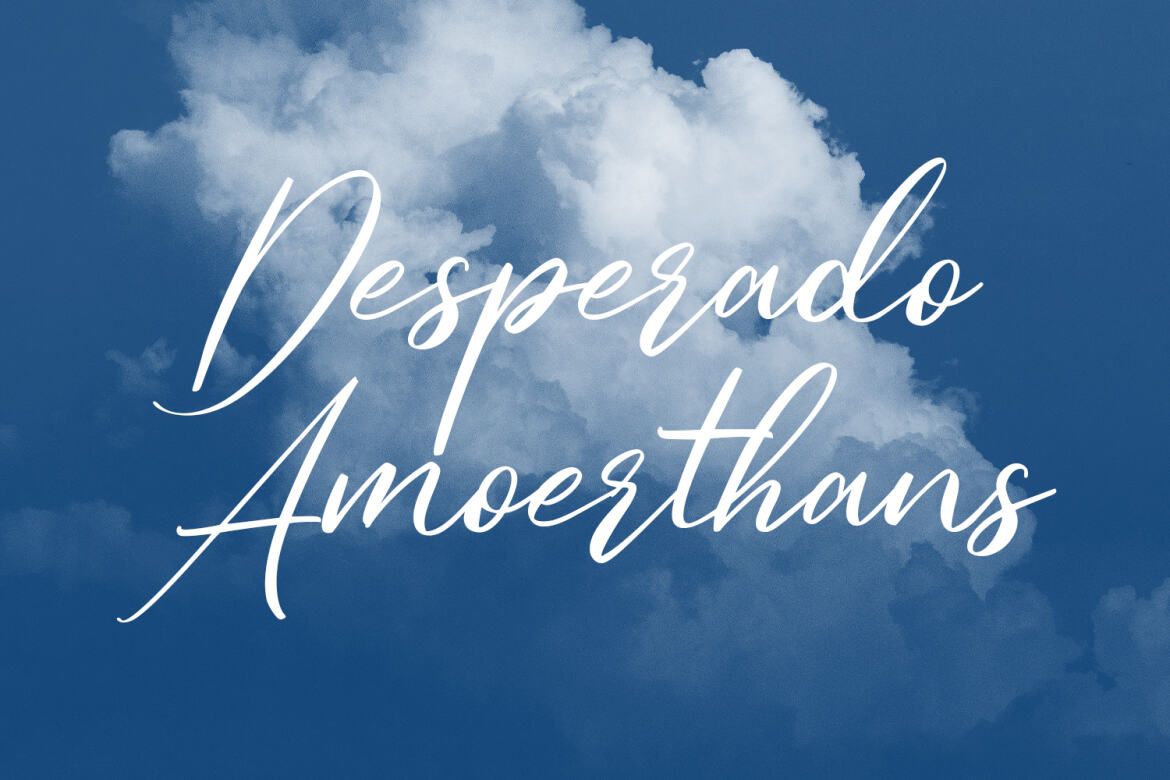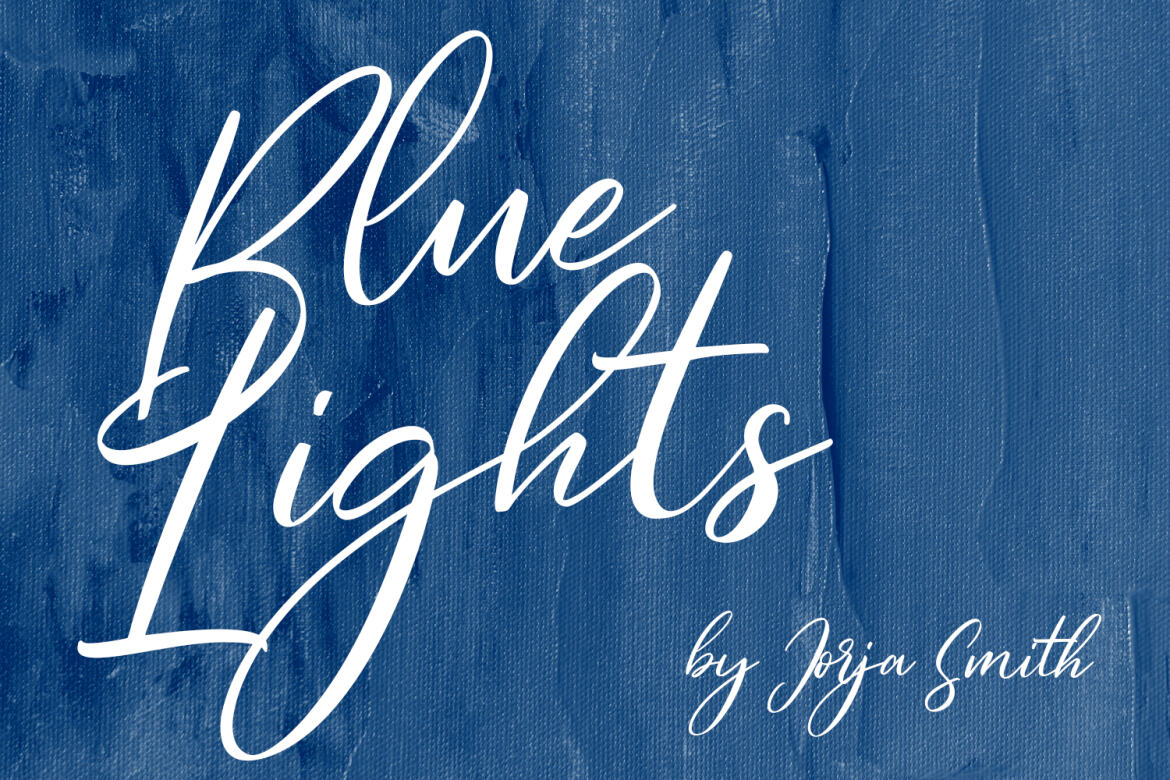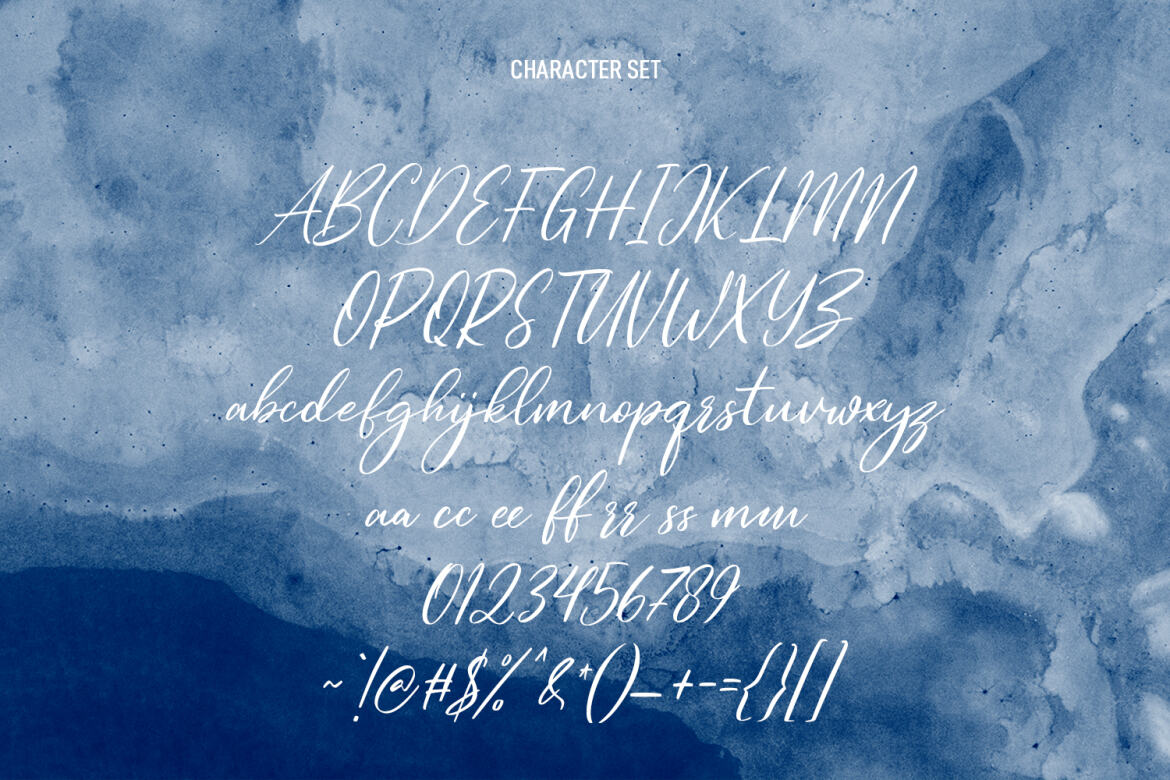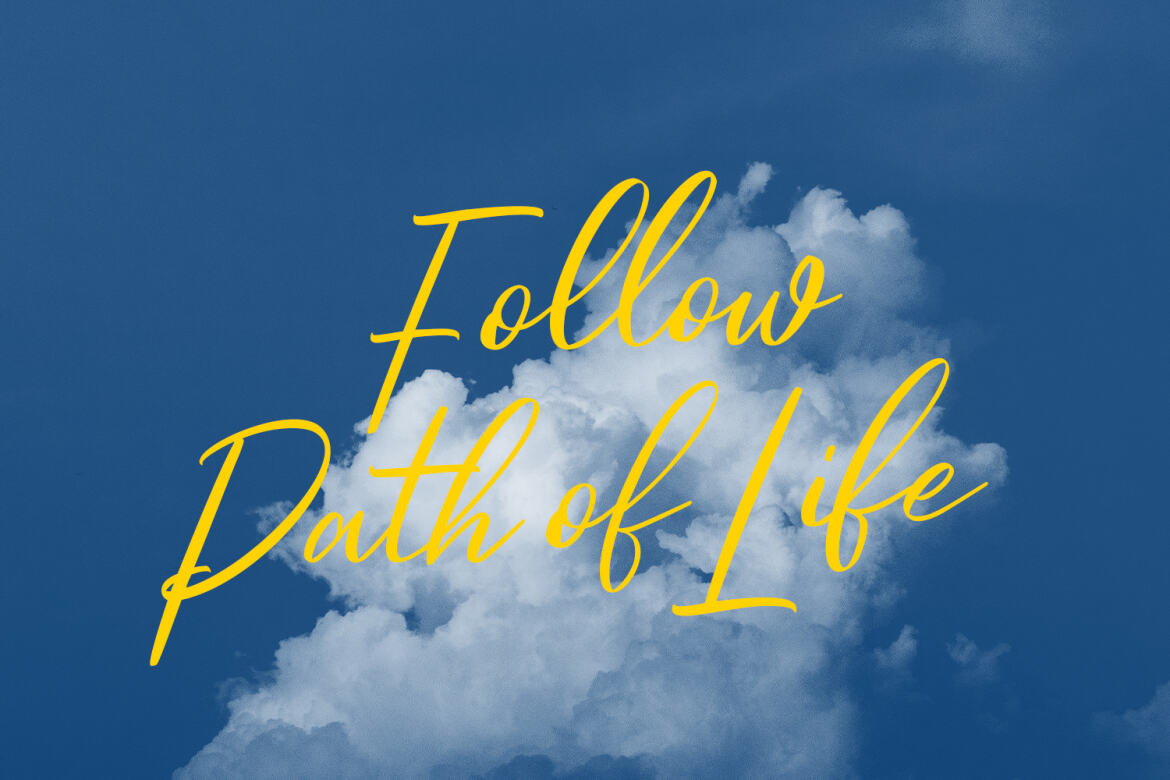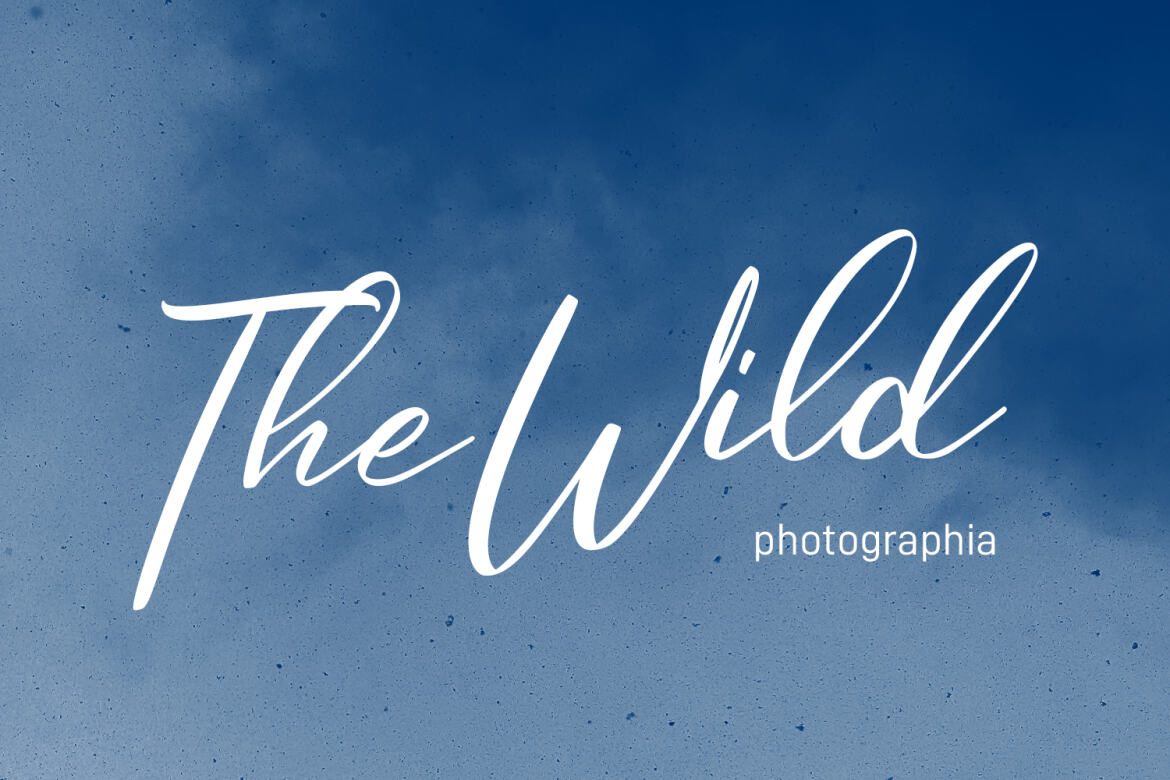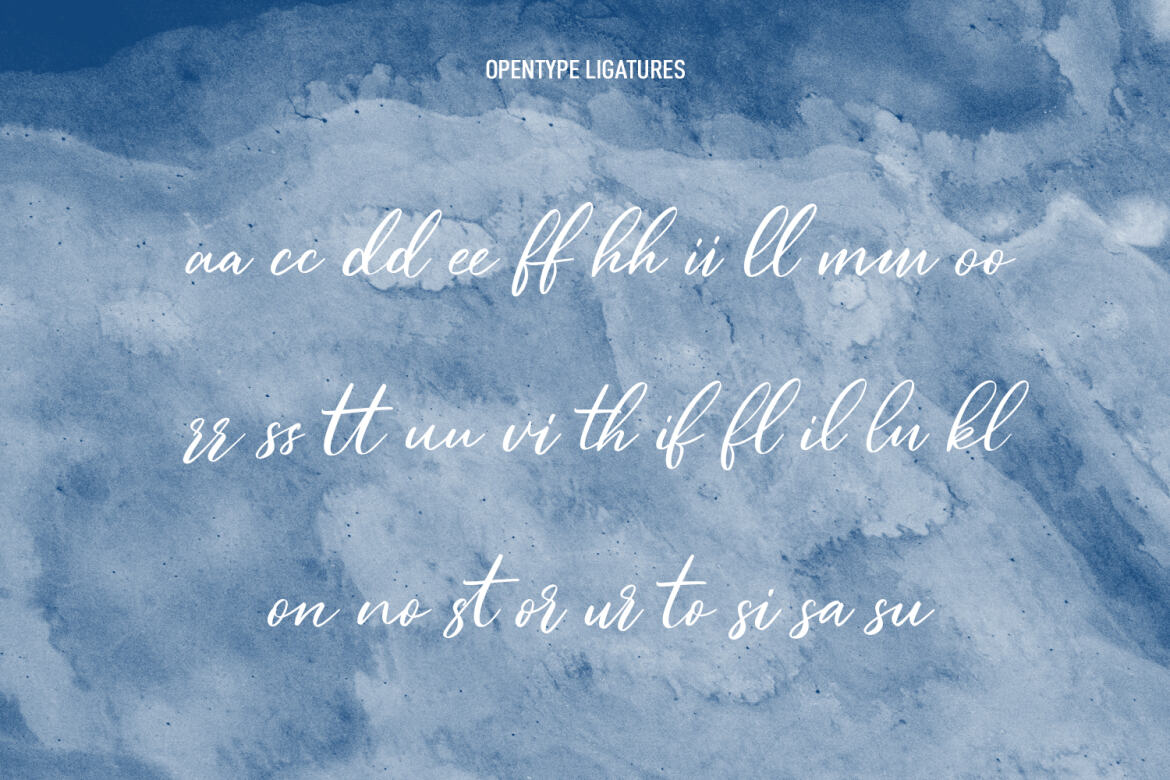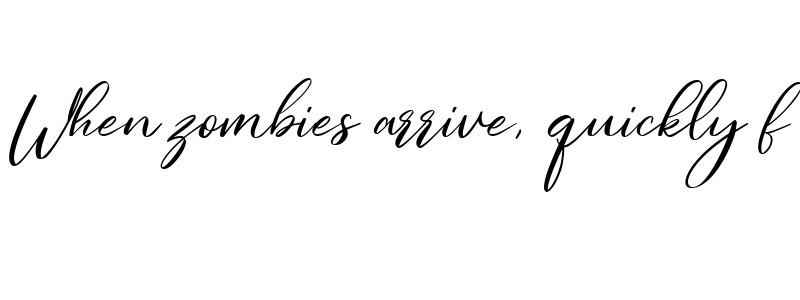
Cosbycorwin Free Script Font
"Cosbycorwin" is a slanted cursive script font. With light contrast stroke, fun character with a bit of ligatures. To give you an extra creative work. "Cosbycorwin" font support multilingual more than 100+ language. This font is good for logo design, Social media, Movie Titles, Books Titles, a short text even a long text letter and good for your secondary text font with sans or serif. Make a stunning work with "Cosbycorwin" font.